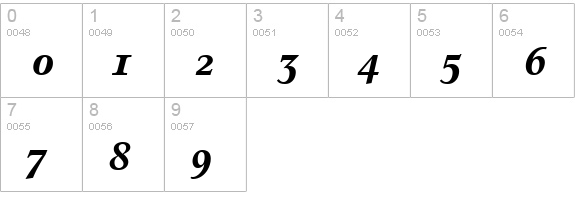
Concorde BE Medium Italic with Oldstyle Figures Font Details
Concorde BE Medium Italic with Oldstyle Figures is a balanced, medium-weight, italic variant in the Concorde typeface family \xE2\x80\x94 well suited to sub-headlines, navigation, and balanced editorial work.
Concorde BE Medium Italic with Oldstyle Figures font exudes elegance and sophistication with its sleek, modern design. The italic styling adds a touch of flair and personality to any text, making it perfect for projects that require a touch of creativity. The oldstyle figures bring a classic charm to the font, adding a timeless quality to its overall appearance. What makes Concorde BE Medium Italic with Oldstyle Figures font even more appealing is that it is available for free download at FontsMarket.com. This means that you can enhance your designs with this beautiful typeface without having to spend a penny. Whether you're working on a professional project or a personal creative endeavor, this font is sure to make a lasting impression. Download Concorde BE Medium Italic with Oldstyle Figures font today and elevate your typography game with ease.